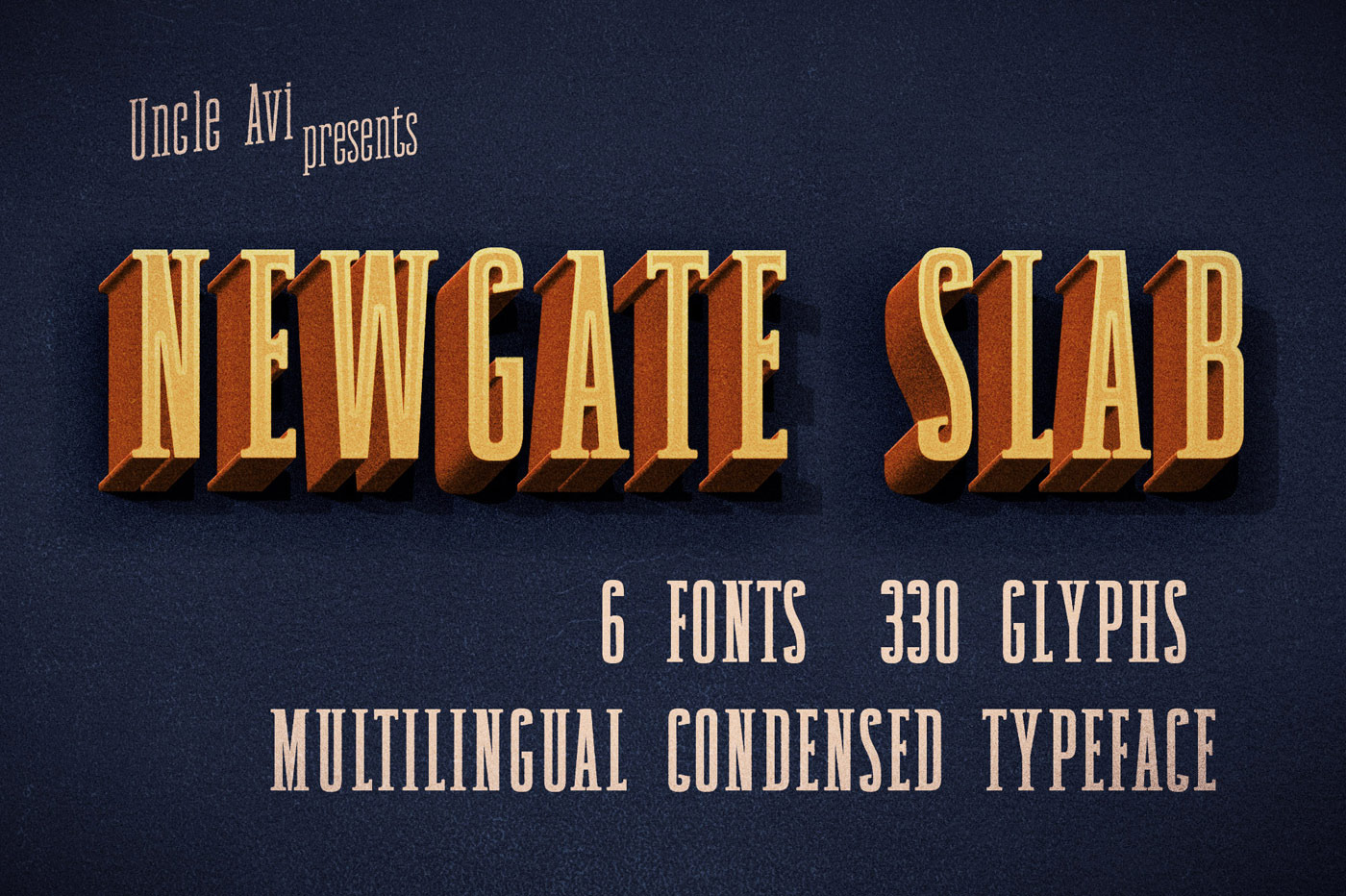
Newgate Slab - Retro Font
Newgate is modern condensed font with a retro feeling.
It's designed to make a statement and is perfect for headlines, logotypes, branding materials, posters, and more.
Newgate Sans typeface includes six fonts: light, light oblique, regular, regular oblique, bold and bold oblique. All offer wide language support, upper and lower cases, numerals and extended punctuation.
It has 330 glyphs per style - covering western and central European Latin-based languages such as English, French, German, Polish, Latvian, Romanian and Turkish (among others).